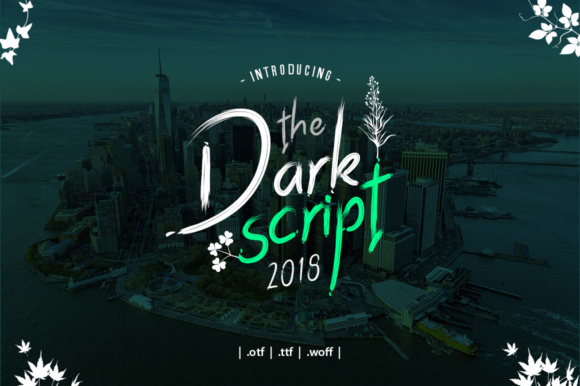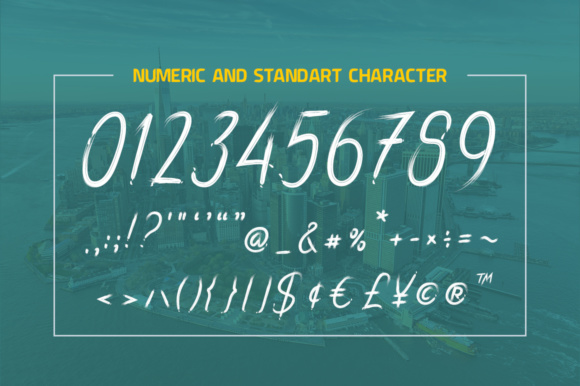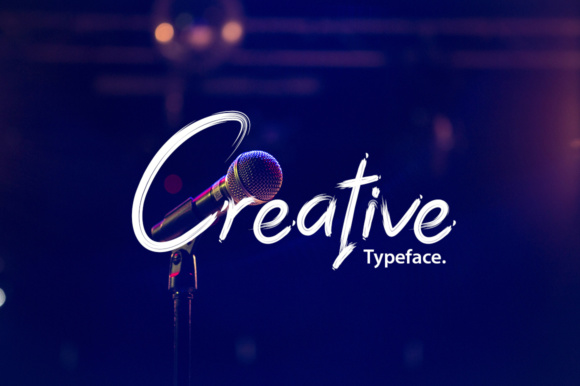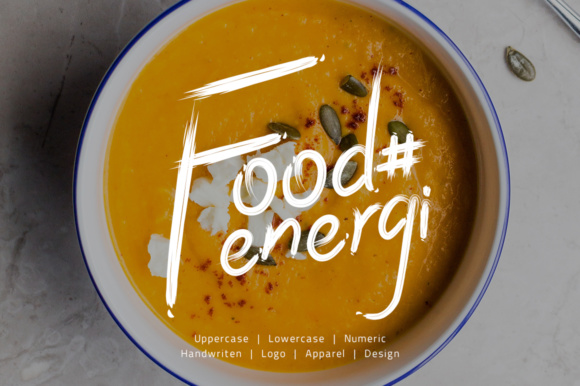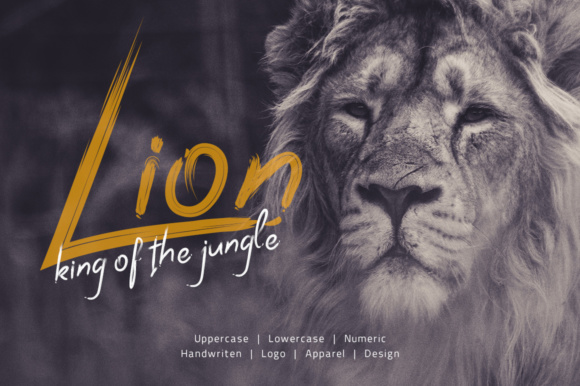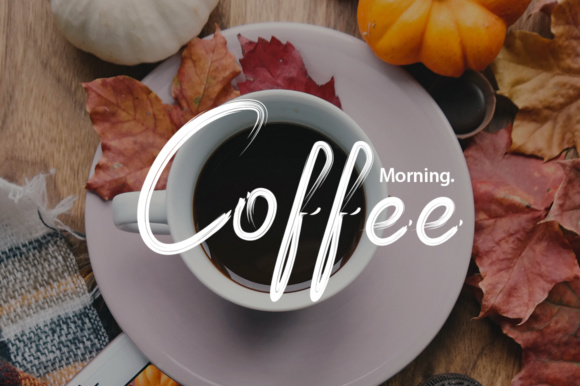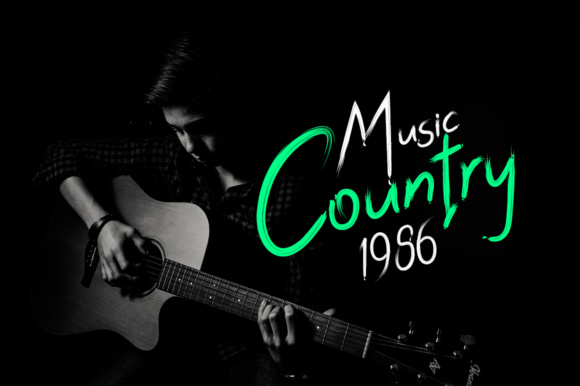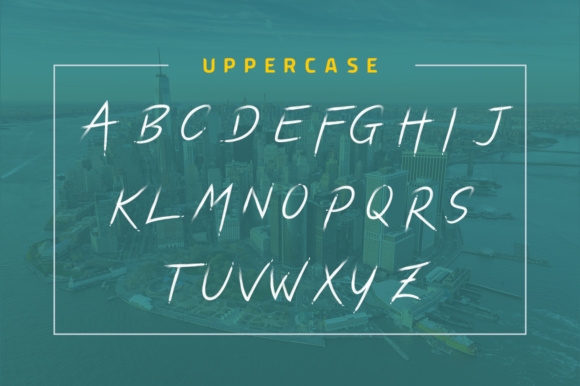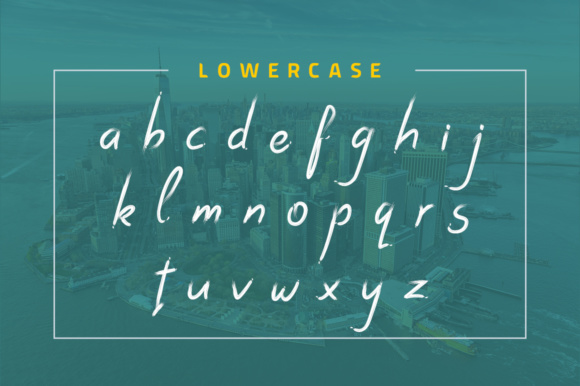
Dark Script Font
About Dark Script Font
The Dark Script is a stylish calligraphy font with a varying baseline and a classic and interesting feel. It can be used for various purposes such as headings, signatures, logos, posters, t-shirts, signage, labels, wedding invitation, badges etc.